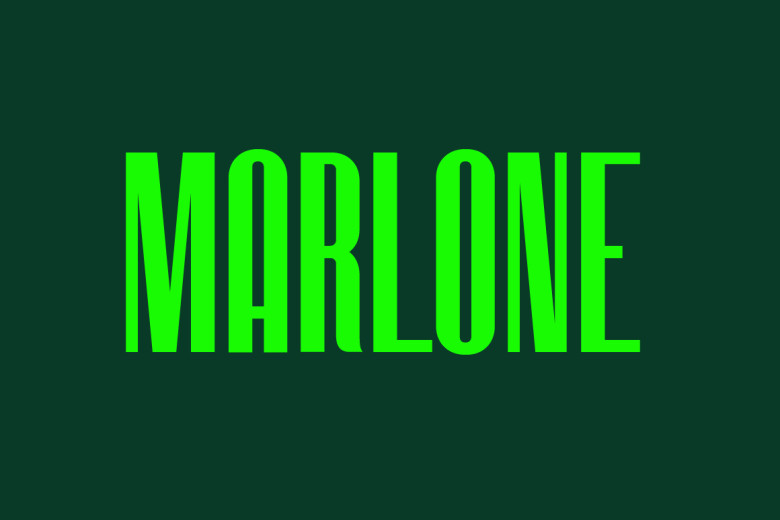
Marlone Font
Marlone is a display font style inspired by retro and vintage design styles. This typeface is perfect for an elegant and luxury logo, book/movie title, fashion brand or magazine, clothing brand, lettering and quotes, and other uses.
Marlone Display Font